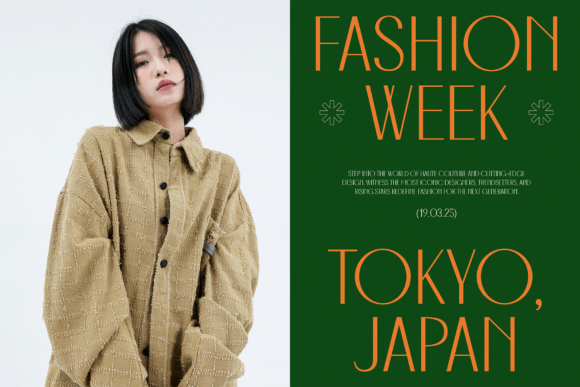
Make a Striking Impression with Antigua Elegant Font: Timeless Elegance for Your Projects
In the world of typography, few fonts manage to convey the essence of elegance and sophistication as effectively as the Antigua Elegant Font. This beautifully crafted typeface is a masterclass in refined design, boasting a sleek charm that can elevate any project to new heights. Whether you’re working on a luxury brand identity, a high-end product launch, or simply looking to add a touch of class to your digital content, the Antigua Elegant Font is an exceptional choice.
Key Features of Antigua Elegant Font
- Timeless Elegance: The Antigua Elegant Font exudes a sense of classic sophistication, making it perfect for projects that demand a refined aesthetic.
- Sleek Charm: Its beautifully crafted design ensures that your text stands out with a unique and stylish flair.
- Easy Customization: Delightfully easy to tweak, you can seamlessly integrate the font into your visual theme by adjusting the text color.
10 Inspiring Ways to Use Antigua Elegant Font
- Luxury Brand Identity: Elevate your brand’s visual identity with a font that screams elegance and sophistication.
- Wedding and Event Invitations: Make your invitations unforgettable with a touch of refined elegance.
- High-End Product Launches: Give your product a luxurious feel with packaging and marketing materials that exude class.
- Digital Content: Add a sophisticated flair to your blog posts, social media content, and website headers.
- Packaging Design: Stand out on store shelves with product packaging that boasts a timeless elegance.
- Advertising and Marketing: Create compelling ad campaigns that capture the essence of luxury and refinement.
- Web Design: Enhance your website’s aesthetic appeal with a font that offers both readability and style.
- Print Design: From brochures to business cards, make a lasting impression with beautifully designed print materials.
- Movie and Theater Posters: Add a touch of class and sophistication to your event promotions.
- Editorial Design: Elevate magazines, newspapers, and editorials with a font that offers both elegance and readability.
Tips for Effective Typography with Antigua Elegant Font
To make the most of the Antigua Elegant Font, consider the following typography tips:
- Pairing: Combine the Antigua Elegant Font with a simple sans-serif font for body text to create a harmonious contrast.
- Spacing: Ensure adequate spacing between lines and paragraphs to maintain readability and enhance the font’s elegant appearance.
- Color: Experiment with different text colors to find the perfect match for your visual theme, keeping in mind the psychological impact of color on your audience.
- Hierarchy: Use varying font sizes and weights to create a clear visual hierarchy, guiding your readers through the content.
The Antigua Elegant Font is more than just a typeface; it’s a statement of elegance and sophistication. Its sleek design, ease of customization, and high-quality output make it an invaluable asset for any designer or brand looking to make a striking impression. Whether you’re working on a luxury brand identity, a high-end product launch, or simply looking to elevate your digital content, this font is sure to exceed your expectations.